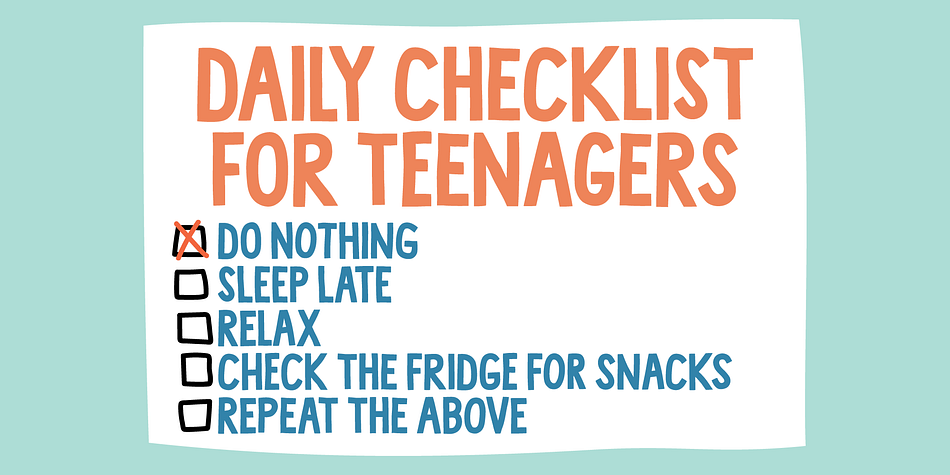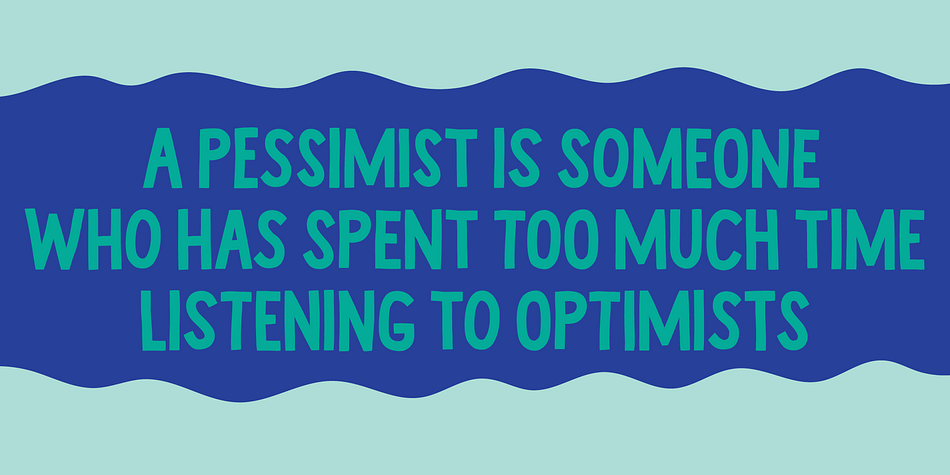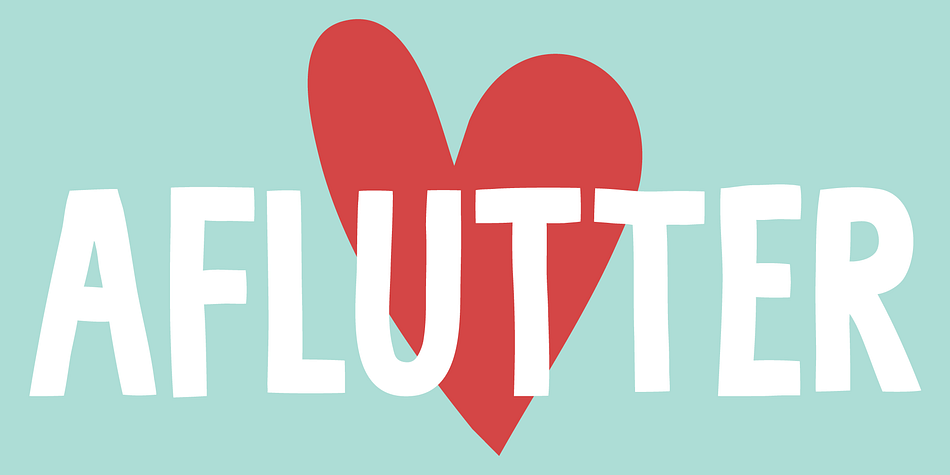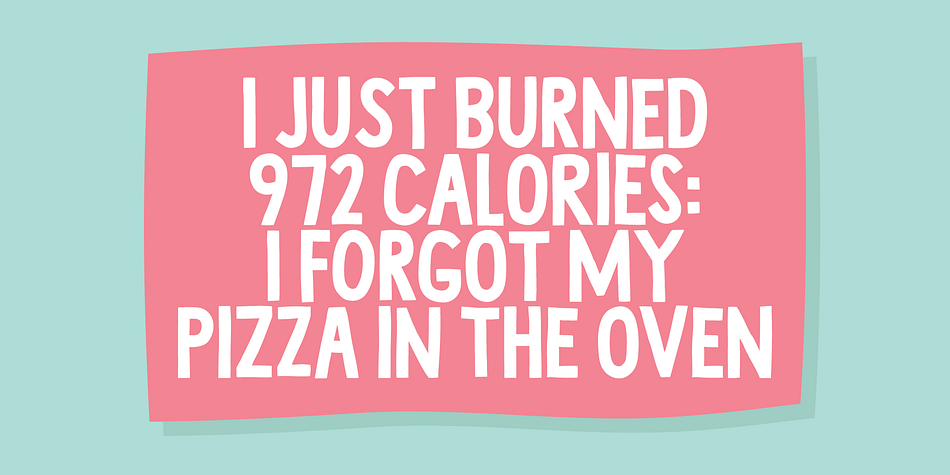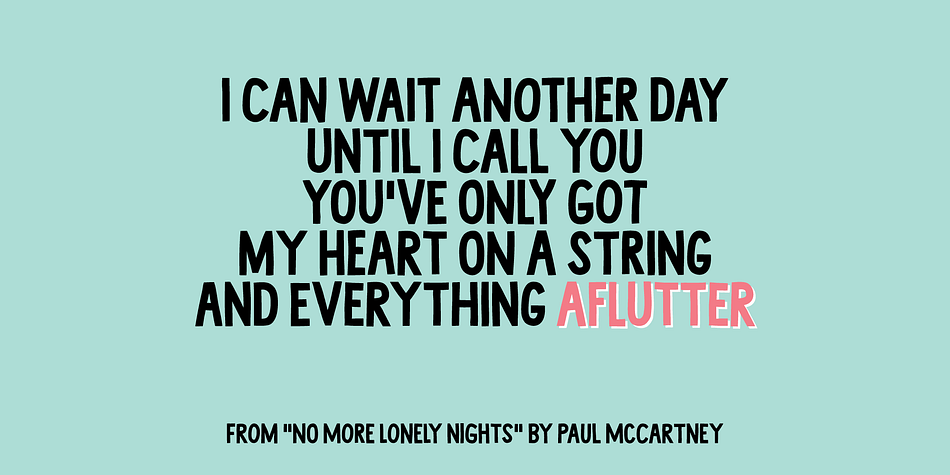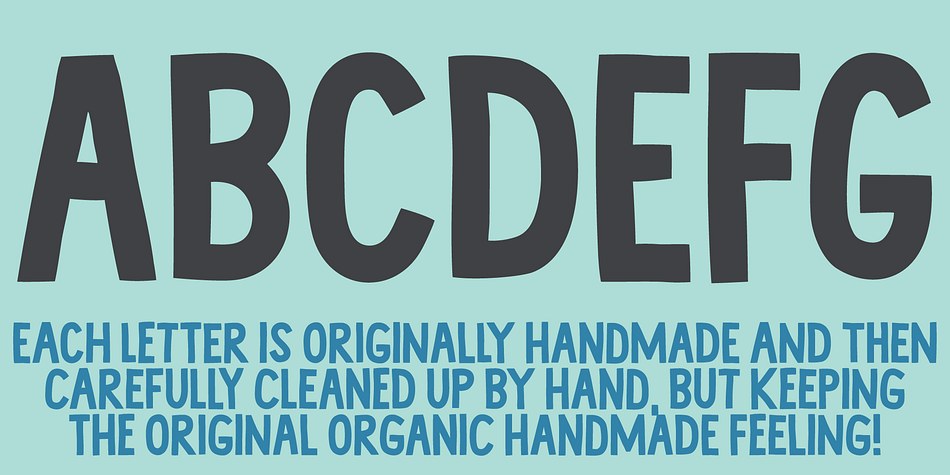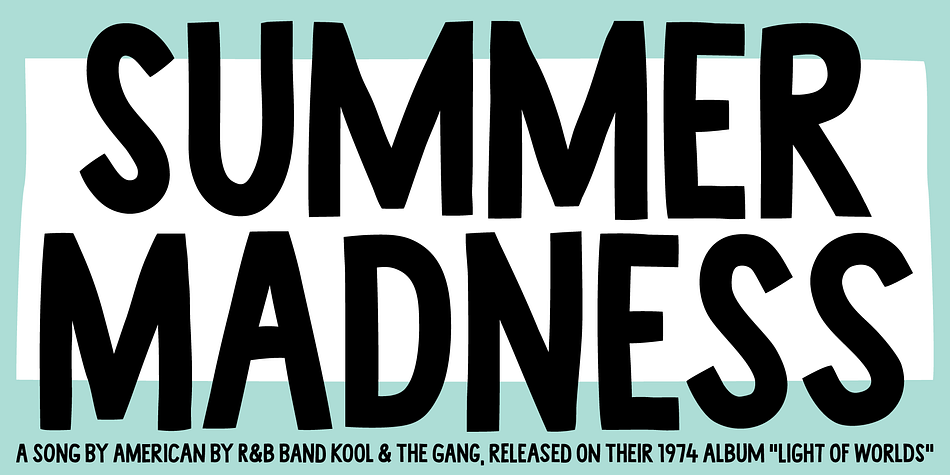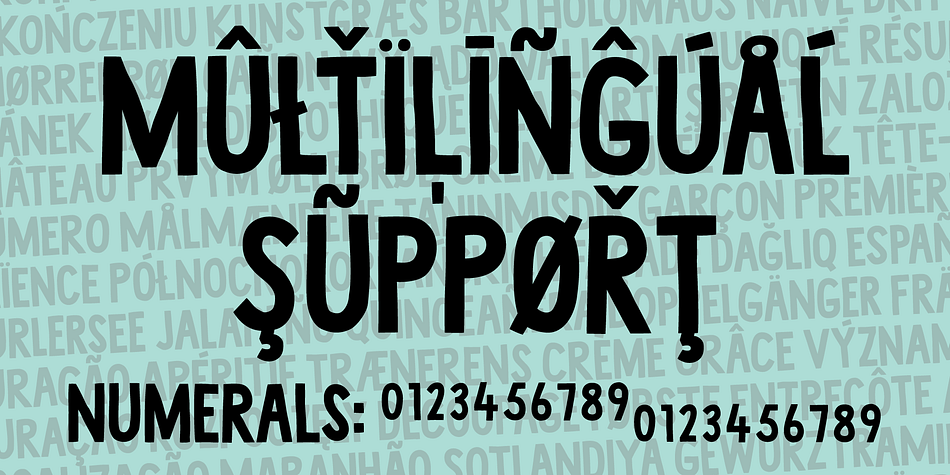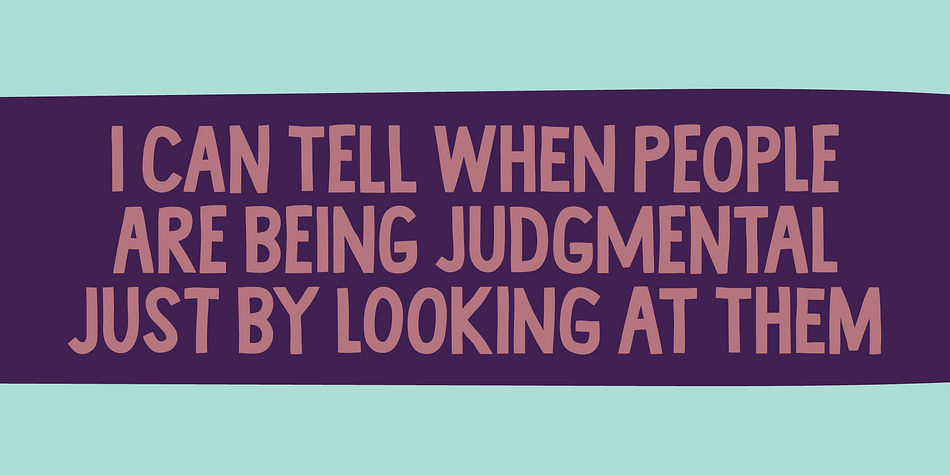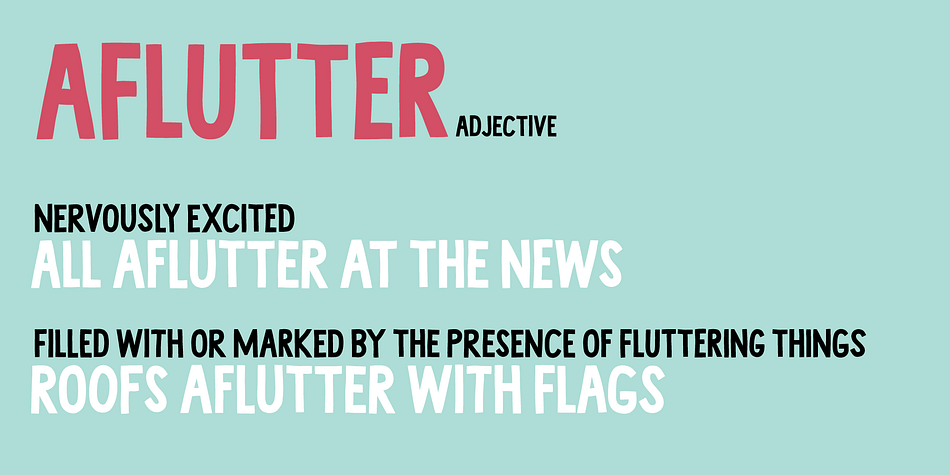
Designed by Jakob Fischer, Aflutter is a display sans font family. This typeface has two styles and was published by Pizzadude.dk.
Aflutter
Aflutter is originally handmade and then carefully digitally remastered. Look close and you will find irregular lines and somewhat imperfect and varying stroke widths and curves.¨
All in all, you get a personal, artistic and rustic touch. I have added a total of 4 slightly different versions of each letter (which automatically cycles as you type!) - which enhances the organic look